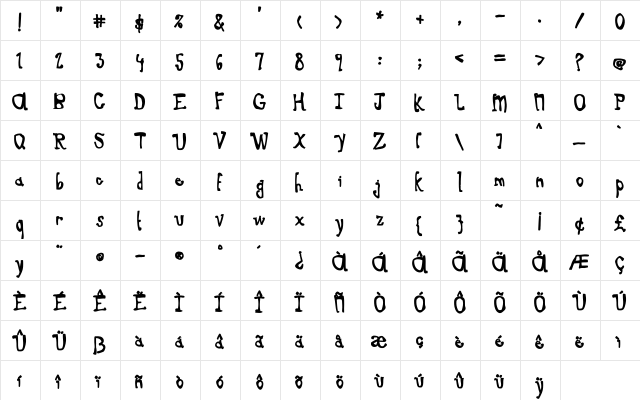
Dogfont Regular
| Foundry | \ - House Industries/Brand Design Company. By Nicole Michels |
Design Context for Dogfont Typeface
Dogfont is a composed and adaptable typeface that performs quietly and consistently across a wide range of design contexts.